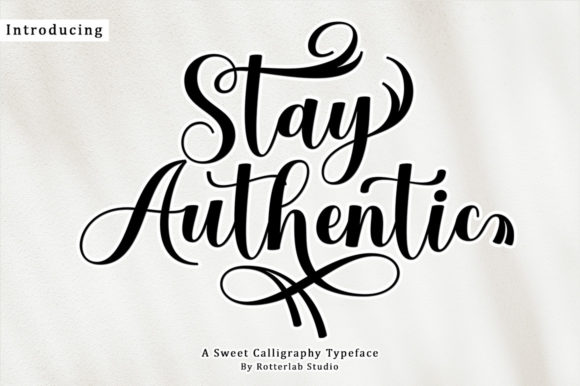
Unleash the Power of Expression with Stay Authentic: A Love Poem in Every Stroke
In the realm of digital creativity, where words dance across screens and emotions ignite hearts, there exists a font that captures the essence of love, longing, and unwavering passion. Introducing Stay Authentic, a script font born from the desire to transform your digital creations into heartfelt masterpieces.
With every curve and flourish, Stay Authentic weaves a tapestry of romance, inviting your readers to immerse themselves in a world of poetic beauty. Its delicately crafted strokes evoke the intimacy of handwritten love letters, whispering sweet nothings into the ears of your audience.
Step into a realm where words become art, where each letter is a brushstroke painting emotions onto the canvas of your digital creations. Stay Authentic's highly detailed design ensures that your messages radiate with elegance and sophistication, leaving an indelible mark on the hearts of those who encounter them.
Unleash the Poetic Potential Within
With Stay Authentic, you hold the power to transform ordinary words into extraordinary expressions of love. Its PUA encoding grants you effortless access to a treasure trove of glyphs and swashes, empowering you to unleash your creativity and weave visual narratives that captivate and inspire.
Imagine your love poems adorned with intricate swirls and flourishes, each character a testament to the depth of your emotions. Watch as your words dance across the screen, painting pictures of unyielding passion and heartfelt longing.
Beyond Love Poems: A Font for All Romantic Endeavors
While Stay Authentic finds its true calling in love poems, its versatility extends far beyond the realm of poetry. Its romantic charm seamlessly translates into wedding invitations, save-the-date cards, and anniversary greetings, adding a touch of timeless elegance to life's most cherished moments.
Envision your wedding invitations adorned with Stay Authentic's graceful script, hinting at the love story that awaits your guests. Picture save-the-date cards that evoke a sense of anticipation, promising a celebration filled with joy and romance.
Stay Authentic is the font that breathes life into your romantic expressions, transforming digital creations into tangible tokens of affection. Its beauty transcends the boundaries of genre, making it the perfect choice for any project that calls for a touch of romance and heartfelt emotion.